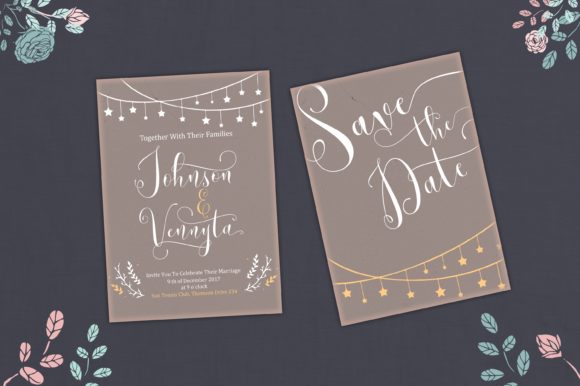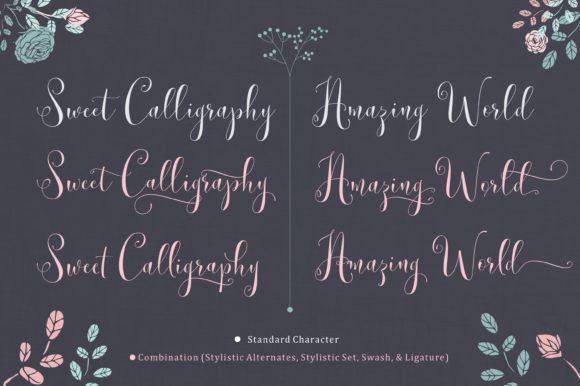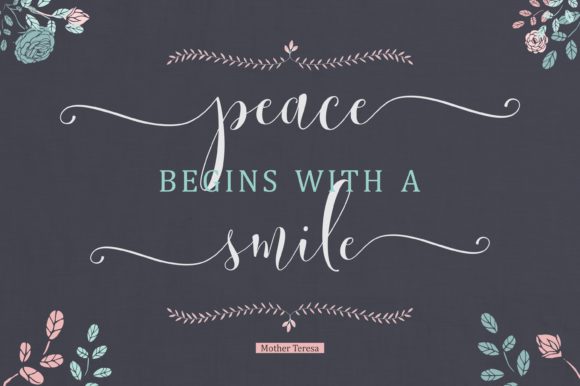
Introduction to Lemonsalt Font
Lemonsalt is an incredibly romantic and radiant handwritten font with a cool feel.
Use it to add a stunning feel to any design project .